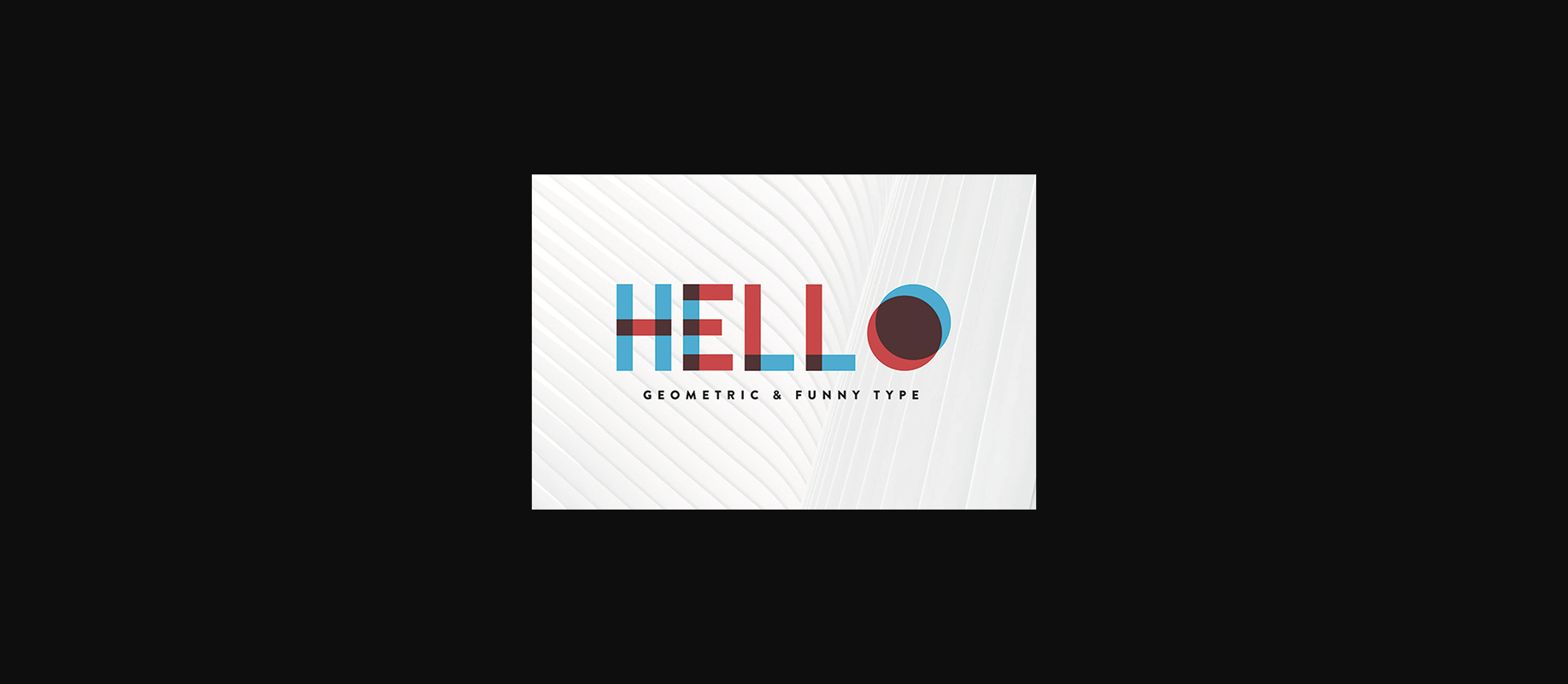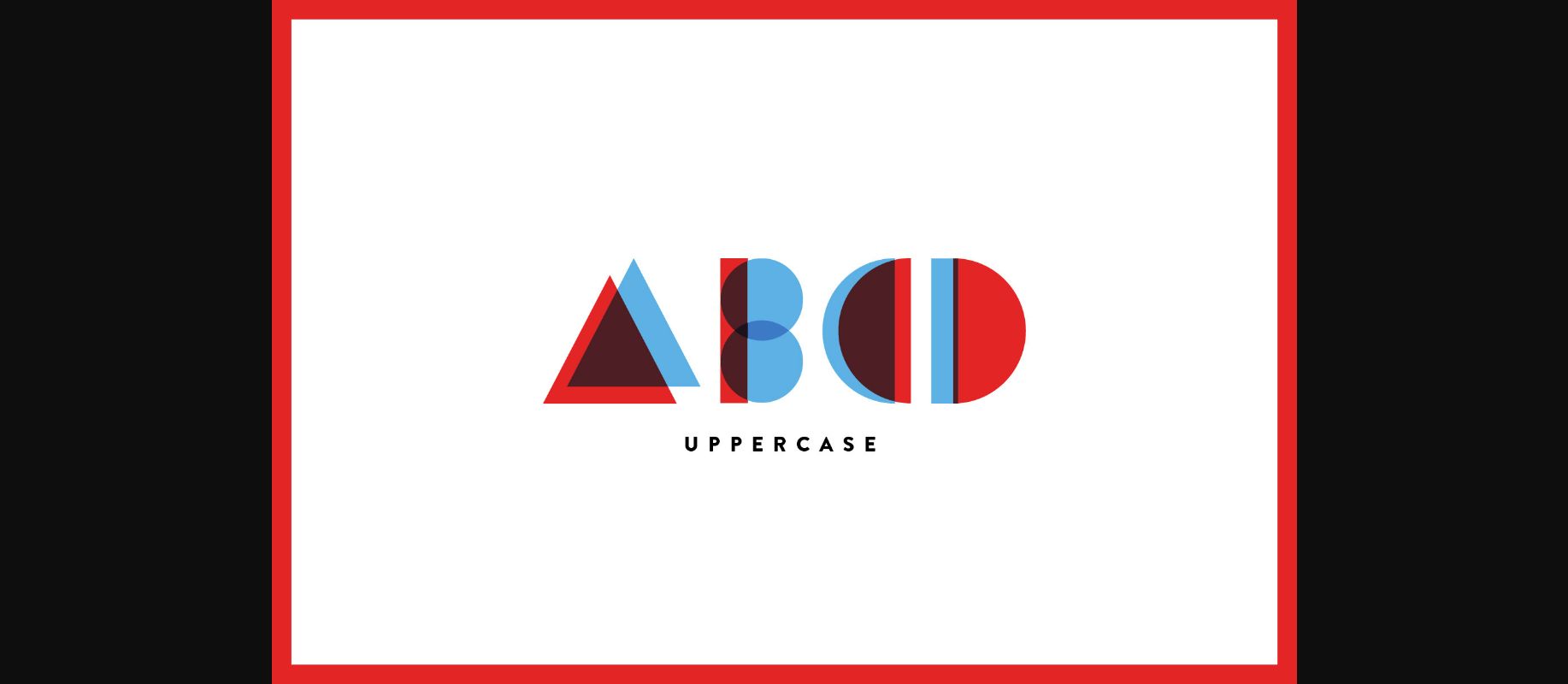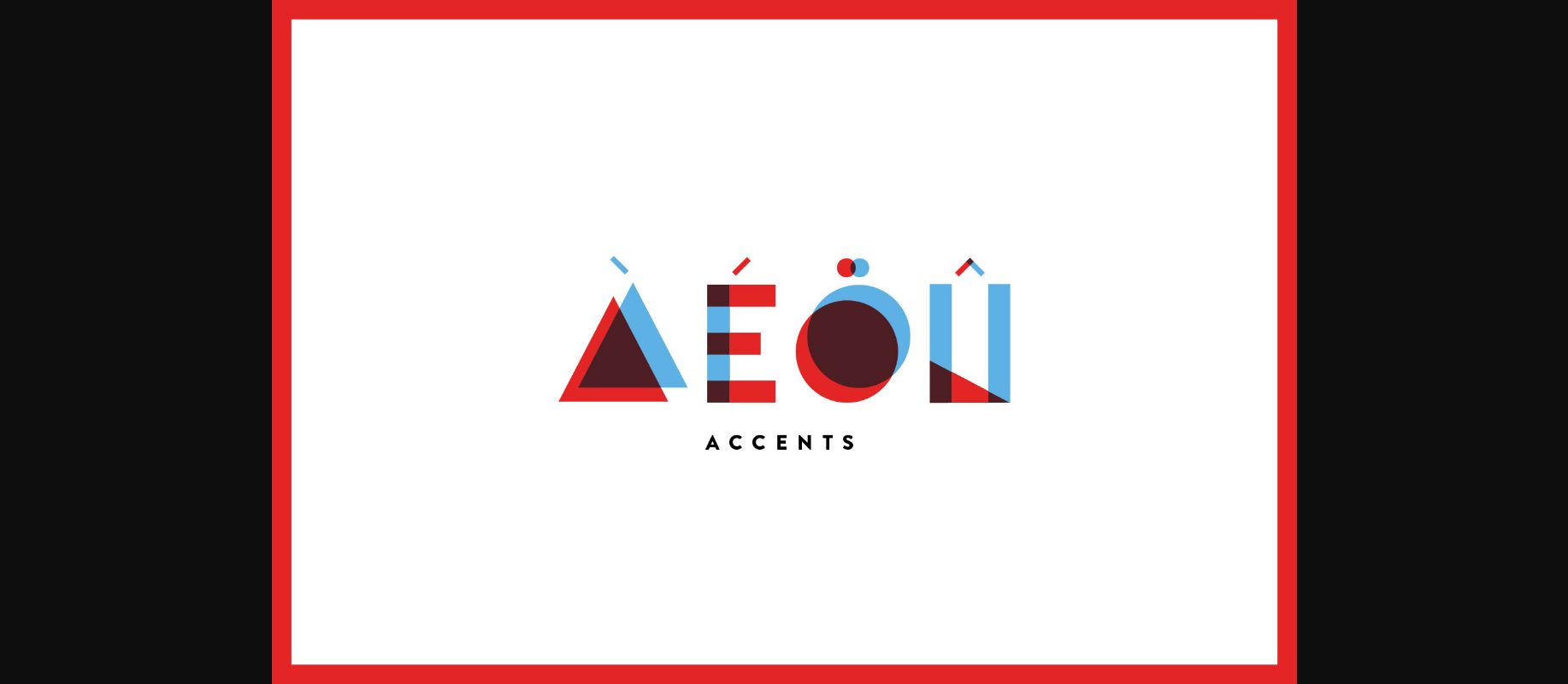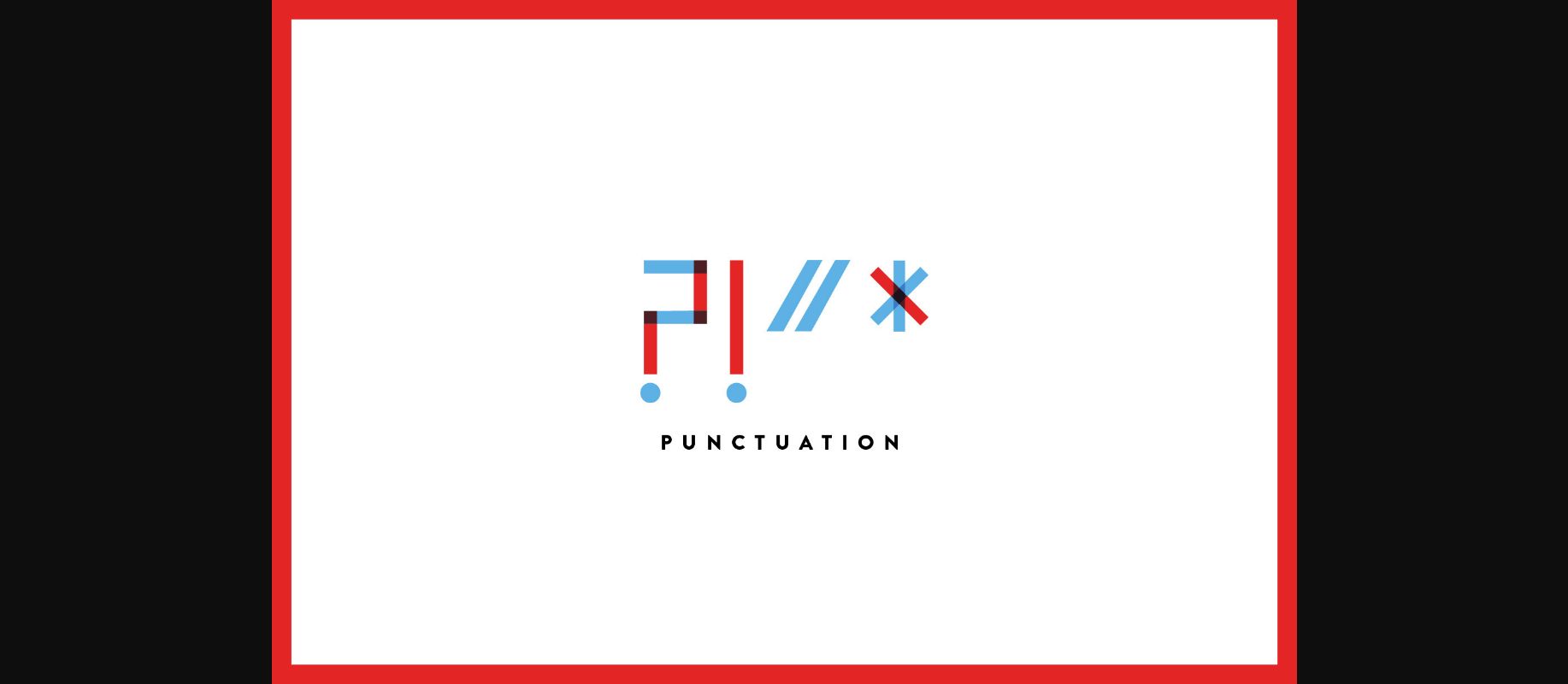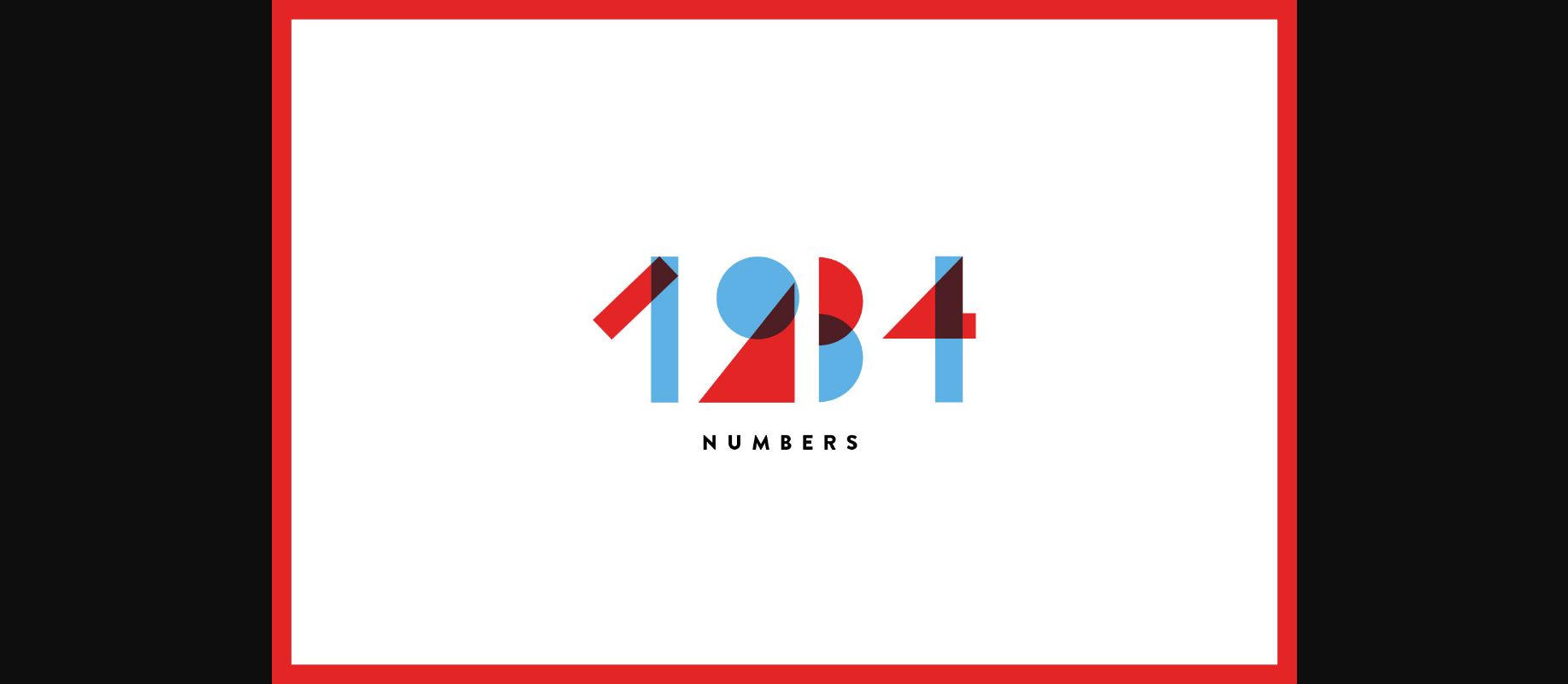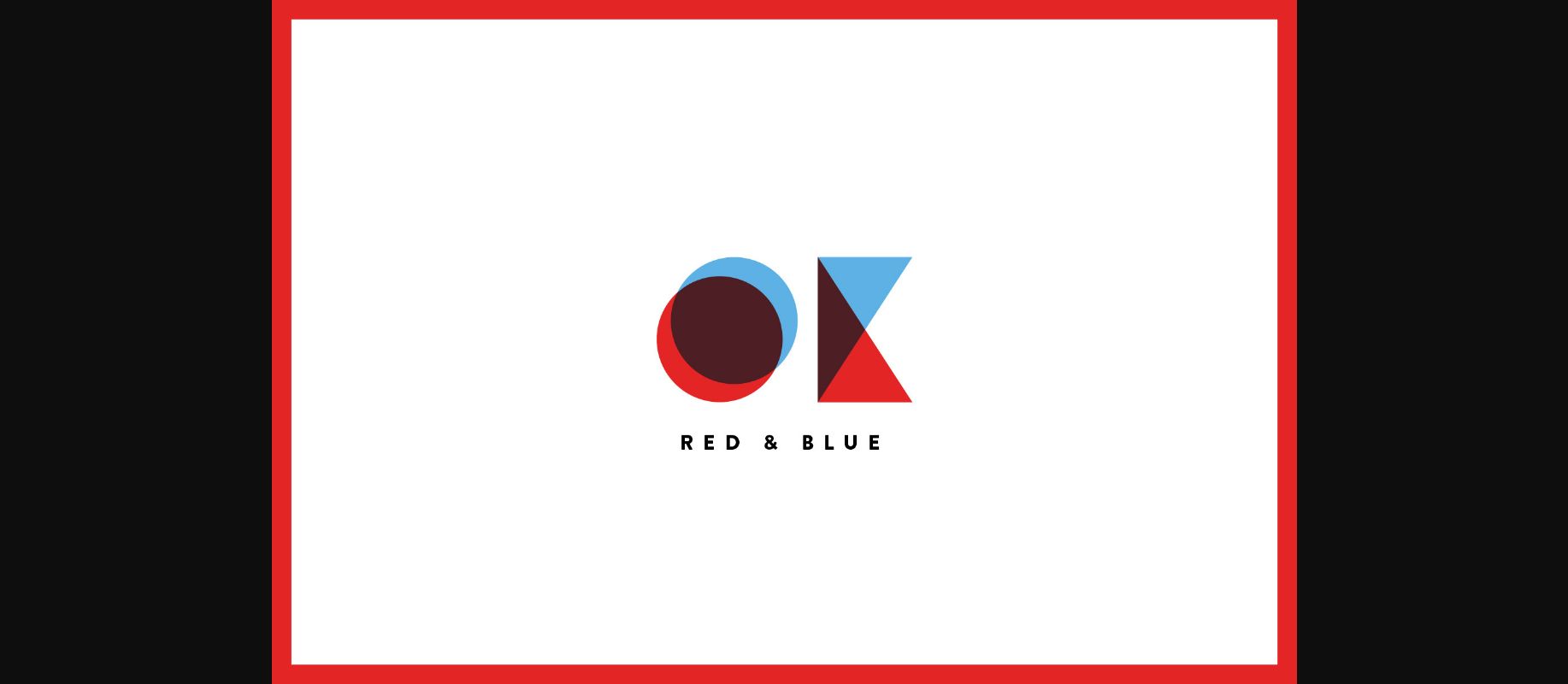
Hello Font
About Hello Font
Hello is an interesting decorative font that has both fun and solemn influences, making it incredibly versatile! Use it for your most creative ideas that need a geometrical style!